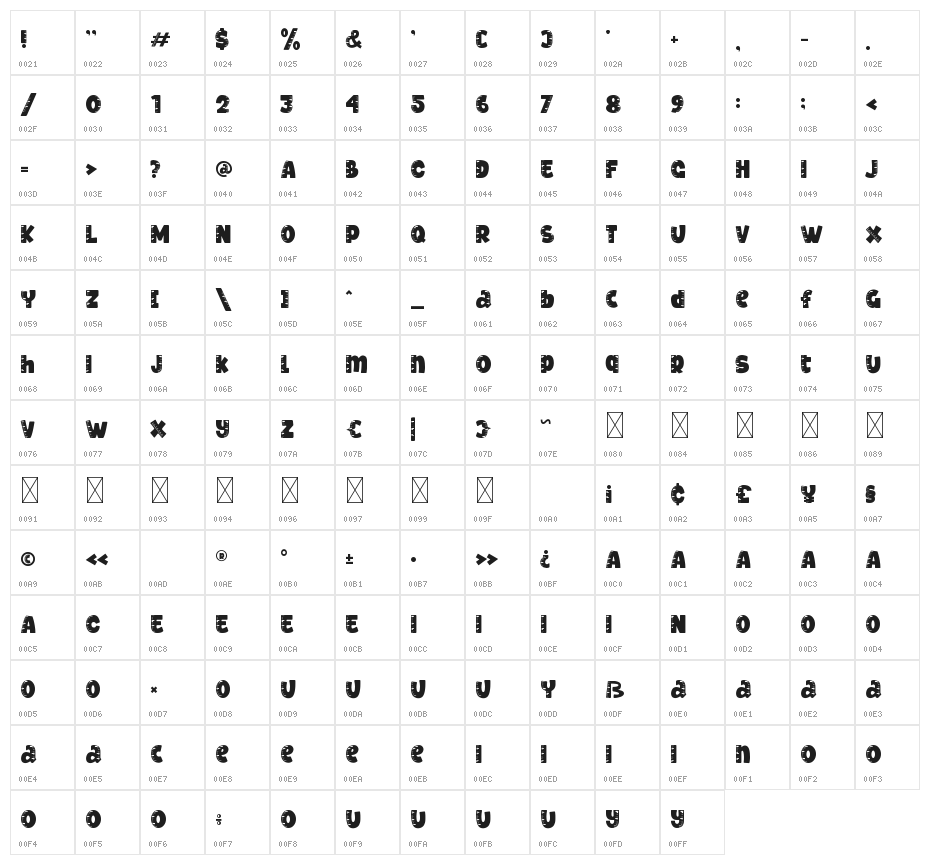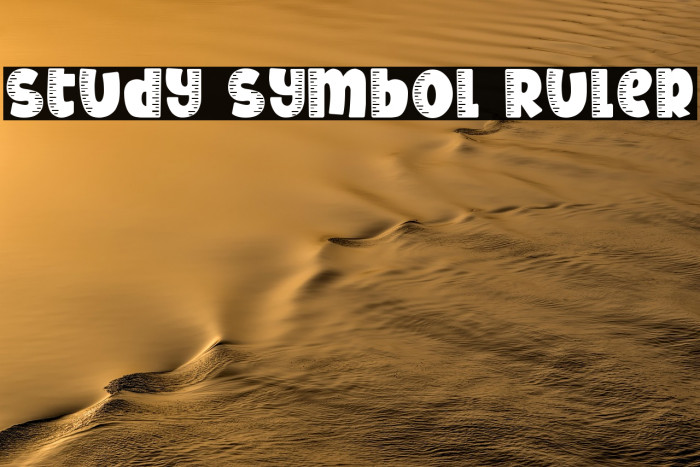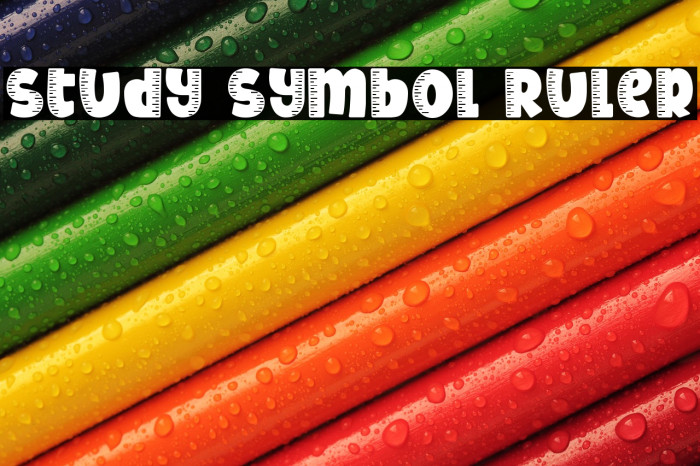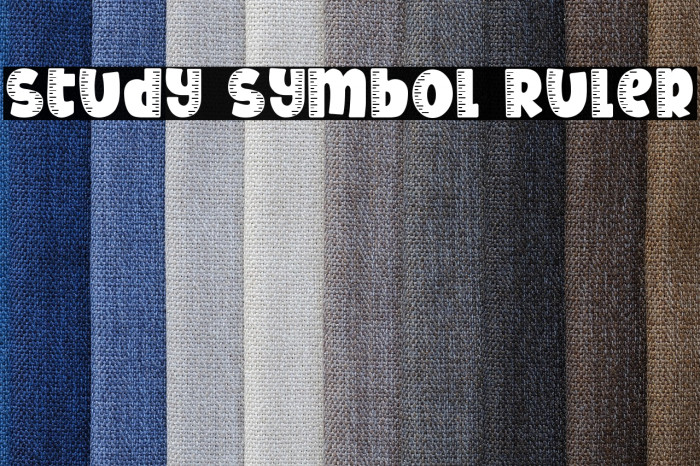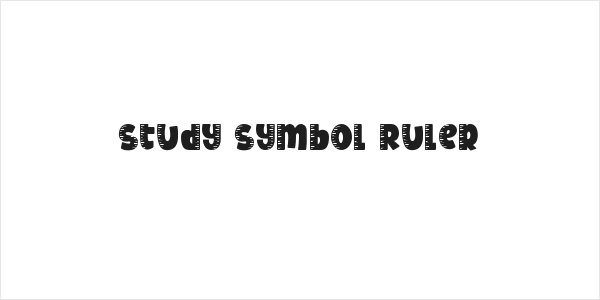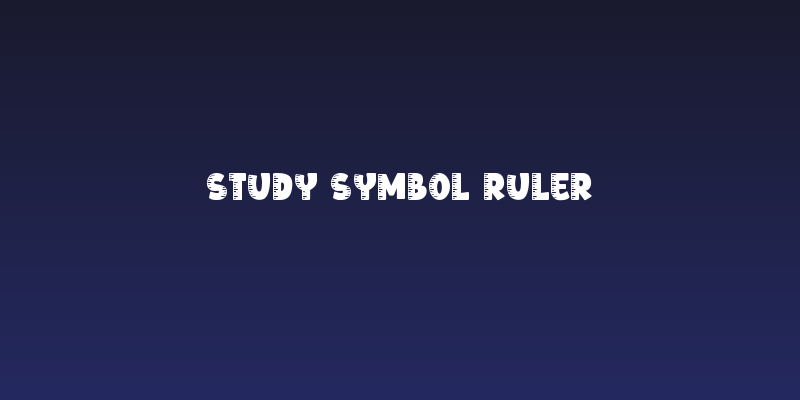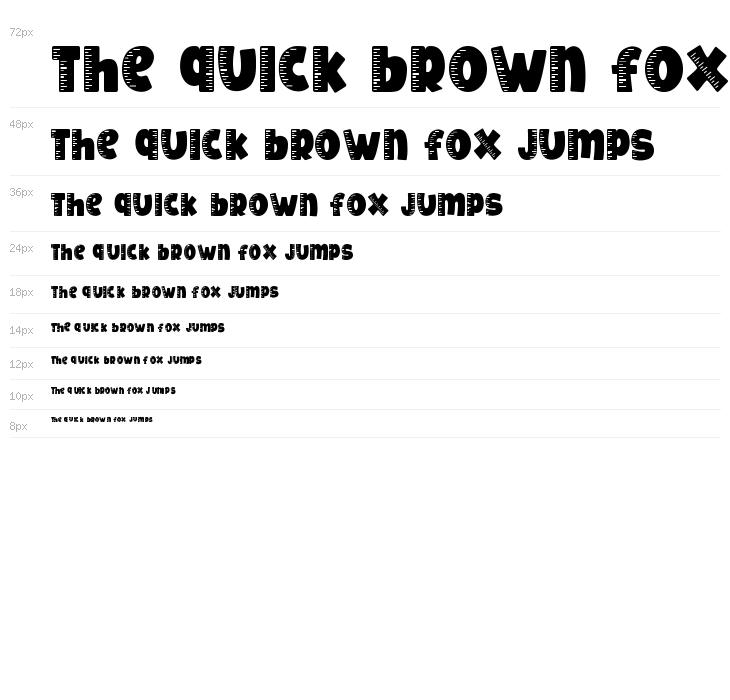
Study Symbol Ruler Font
Study Symbol Ruler Description
This font features a playful, decorative style with a unique ruler-like pattern embedded within each character. The bold, chunky letters are designed with a hand-drawn aesthetic, giving them a whimsical and informal appearance. The uppercase and lowercase letters maintain a consistent width and weight, providing a uniform look across the alphabet. The numbers and special characters follow the same design principles, ensuring cohesion throughout. The font's distinct style makes it eye-catching and suitable for creative projects.
| Proposed Projects | Ideal for educational materials, children's books, playful posters, and creative branding. |